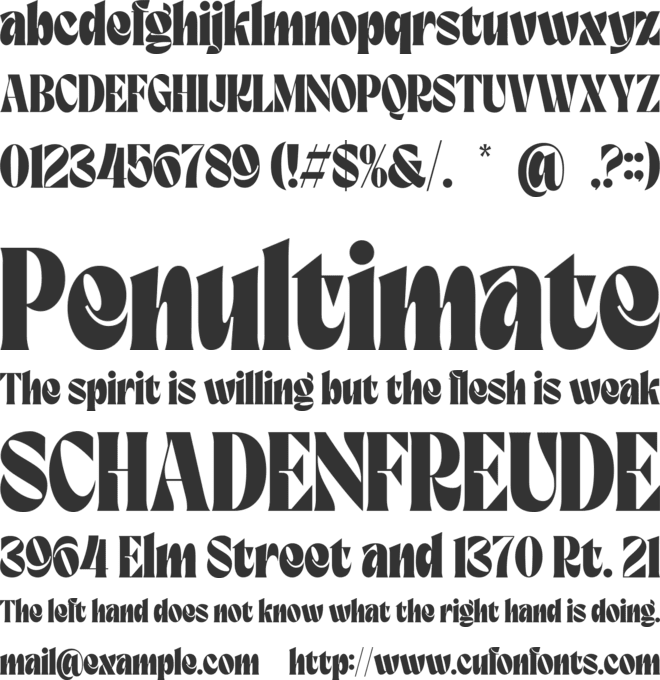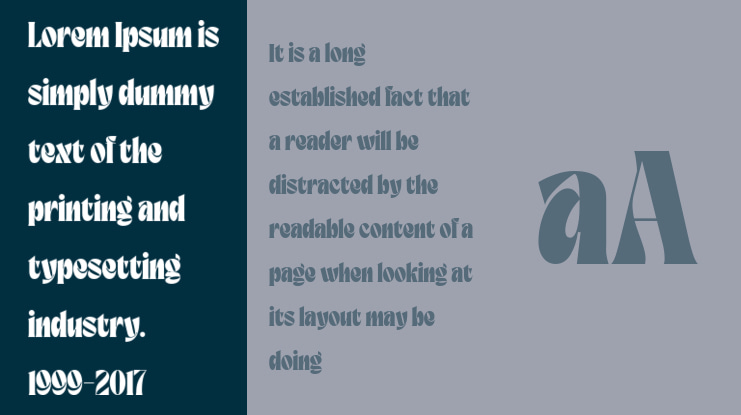
Contrast Groovy Font
Contrast Groovy Typeface: The Ultimate Retro Revival
Step back into the golden era of design with Contrast Groovy Typeface, a bold, high-contrast serif that perfectly captures the funky, vibrant essence of the 1980s. Designed for those who want their typography to speak with personality and rhythm, this font blends vintage nostalgia with a sharp, modern execution.
Contrast Groovy isn't just a font; it’s a complete design toolkit. Featuring thick, expressive strokes paired with elegant thins, it creates a visual "groove" that is impossible to ignore. Whether you are designing a streetwear brand, a retro-themed poster, or eye-catching social media content, this typeface brings a "savage elegance" to every pixel.